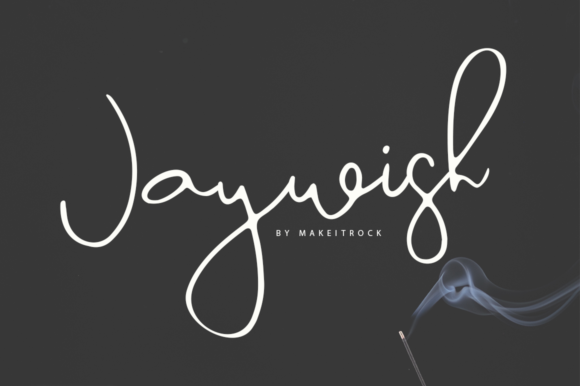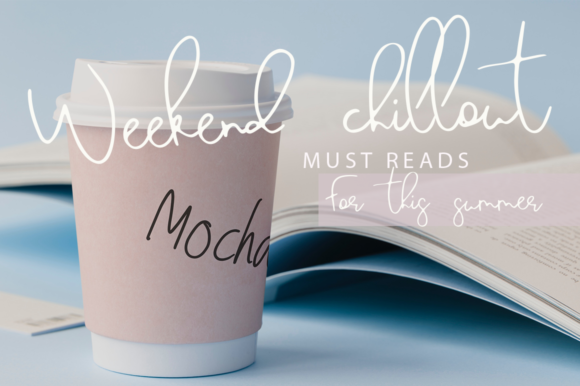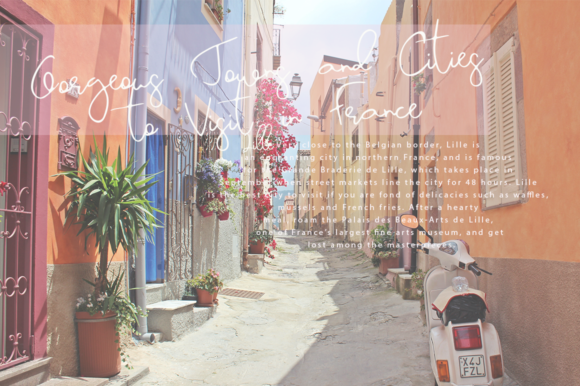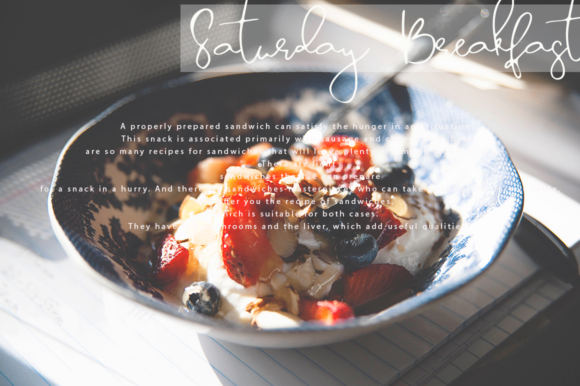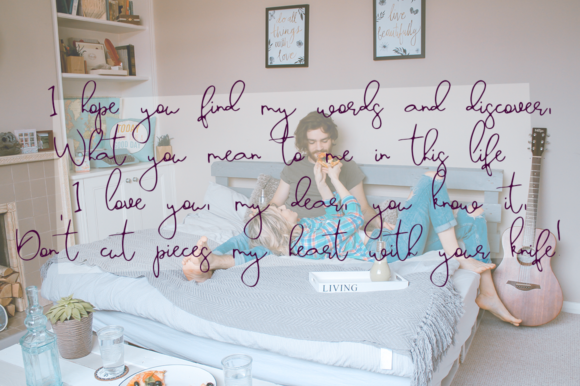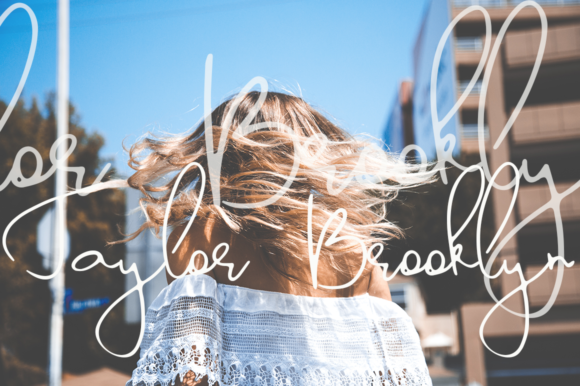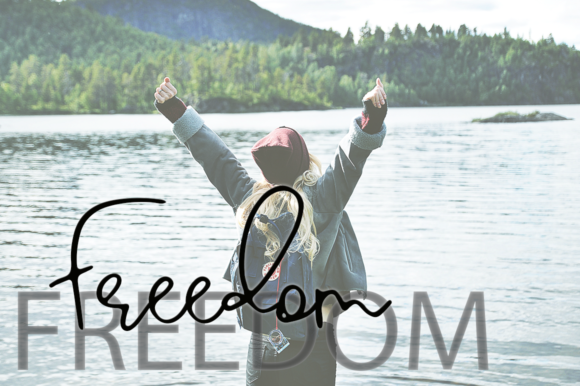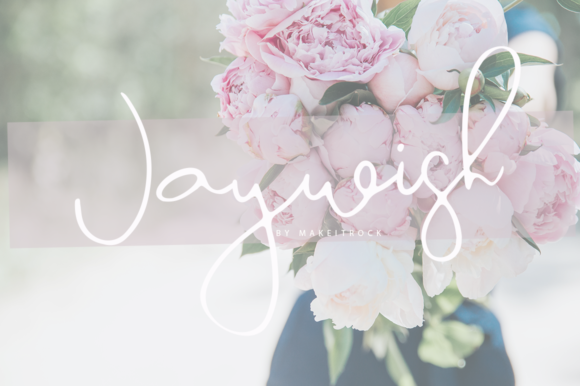
Jaywish Font
About Jaywish Font
Jaywish is a classy handwritten script font that has been attentively written with gentle curves to produce a font that’s completely distinctive and original. Perfect for adding a elegant and unique touch to your lettering projects and branding